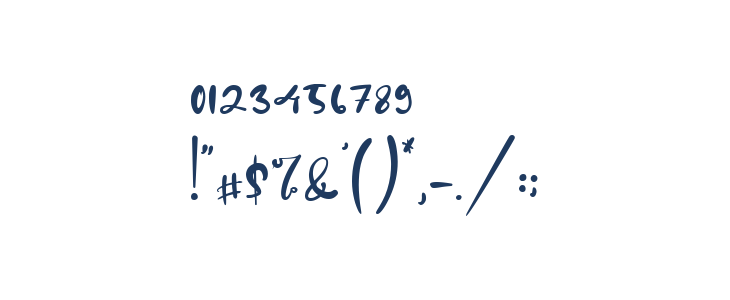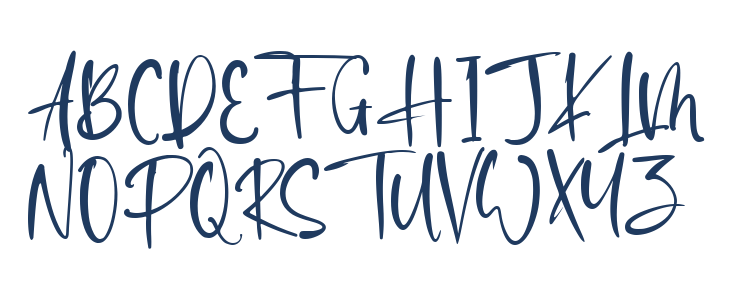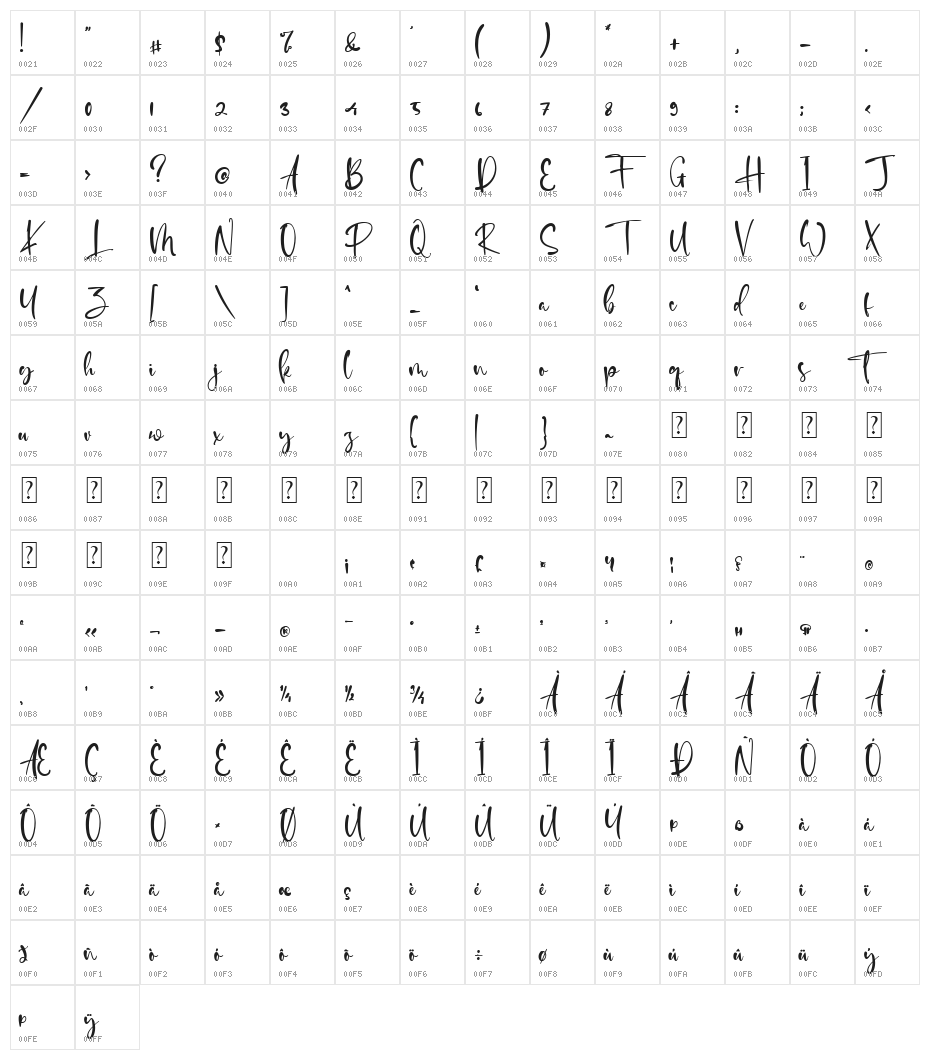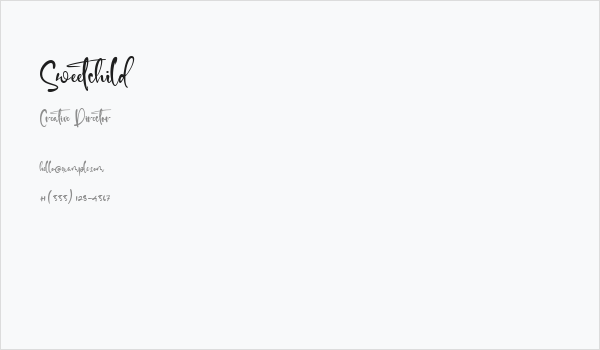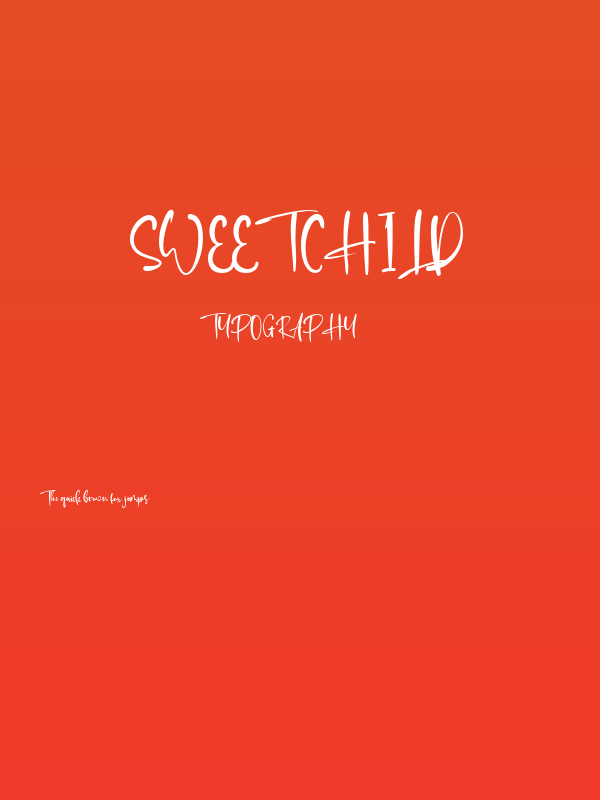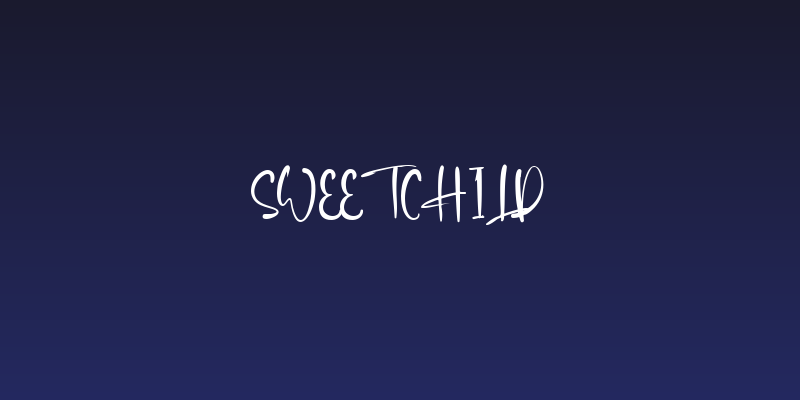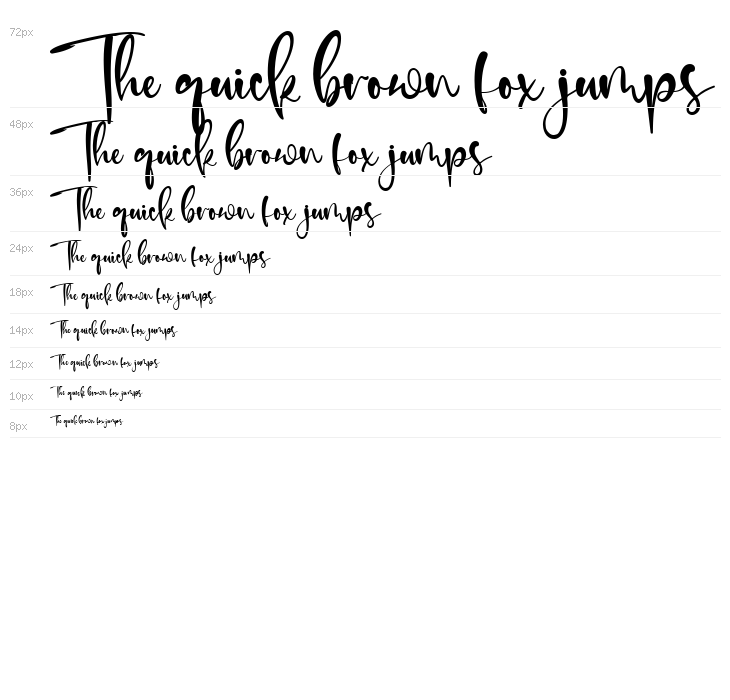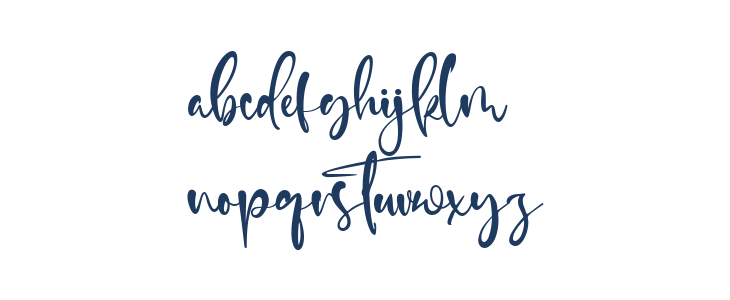
Sweetchild Font
Sweetchild Description
A playful, handwritten script font with irregular strokes and varying thickness, featuring tall ascenders and dynamic, flowing letterforms. The characters have a casual, expressive feel, with some exaggerated loops and a slightly messy, organic appearance.
| Overall Style | Decorative, Playful, Modern |
| Use Case | Logos, Headlines, Invitations, Social Media Graphics |
| Proposed Projects | Greeting cards, invitations, social media graphics, branding for creative businesses, posters, and personal projects. |